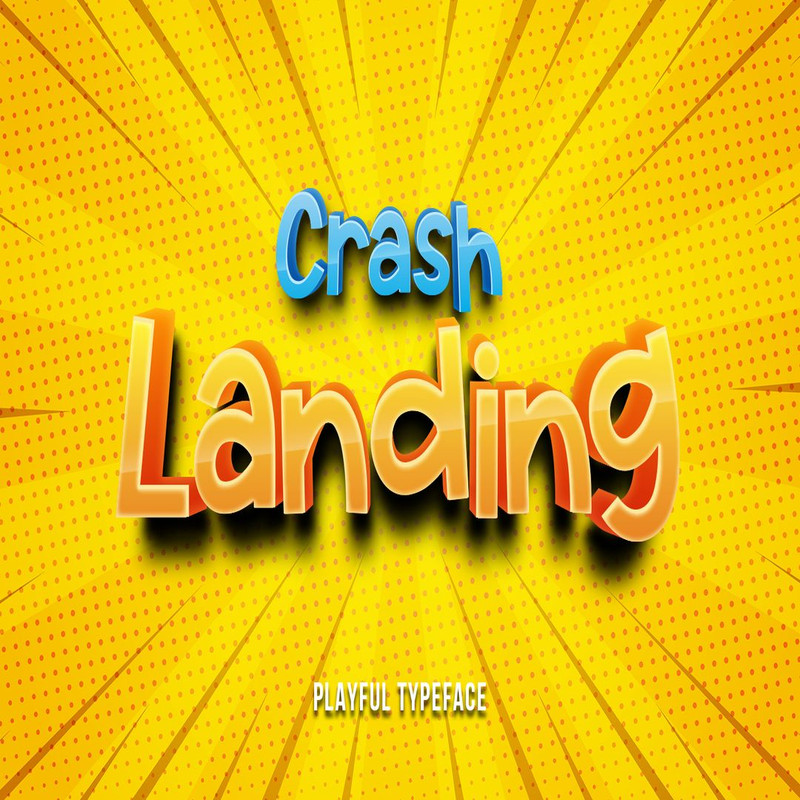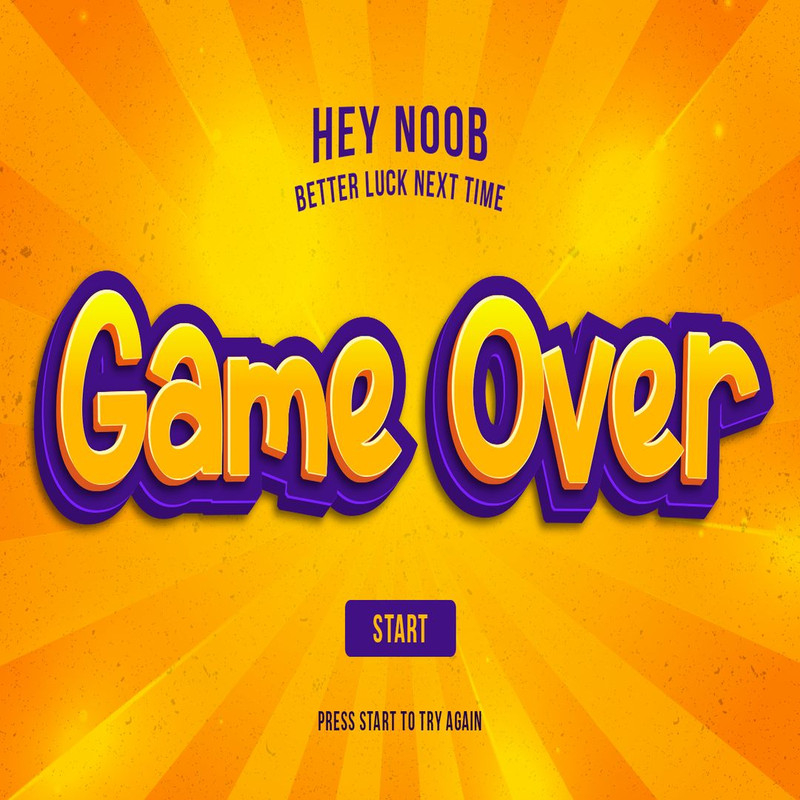
Crash Landing – Playful Font Trending Fonts - Digital Font
Crash Landing is a fun casual sans serif font that playfully designed for game, cartoon, or comic. This font also great for kids projects.
Uppercase
Lowercase
Numbers & Punctuation